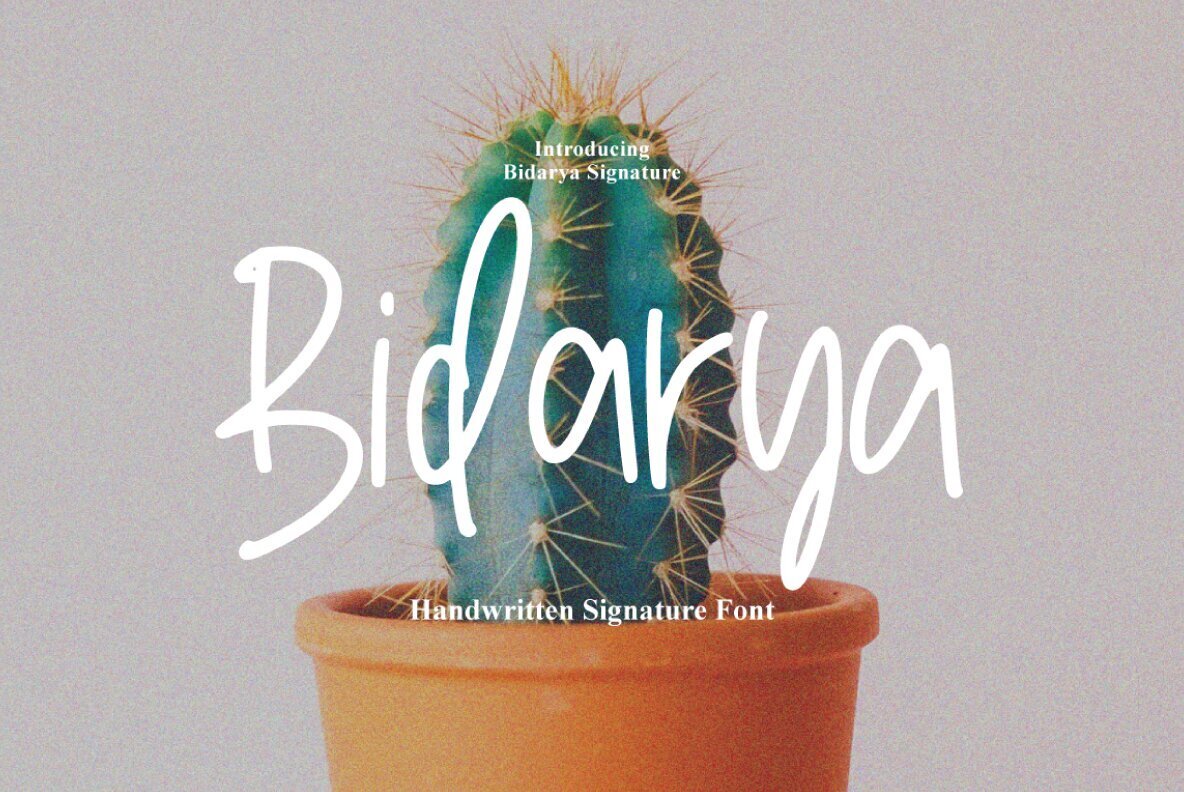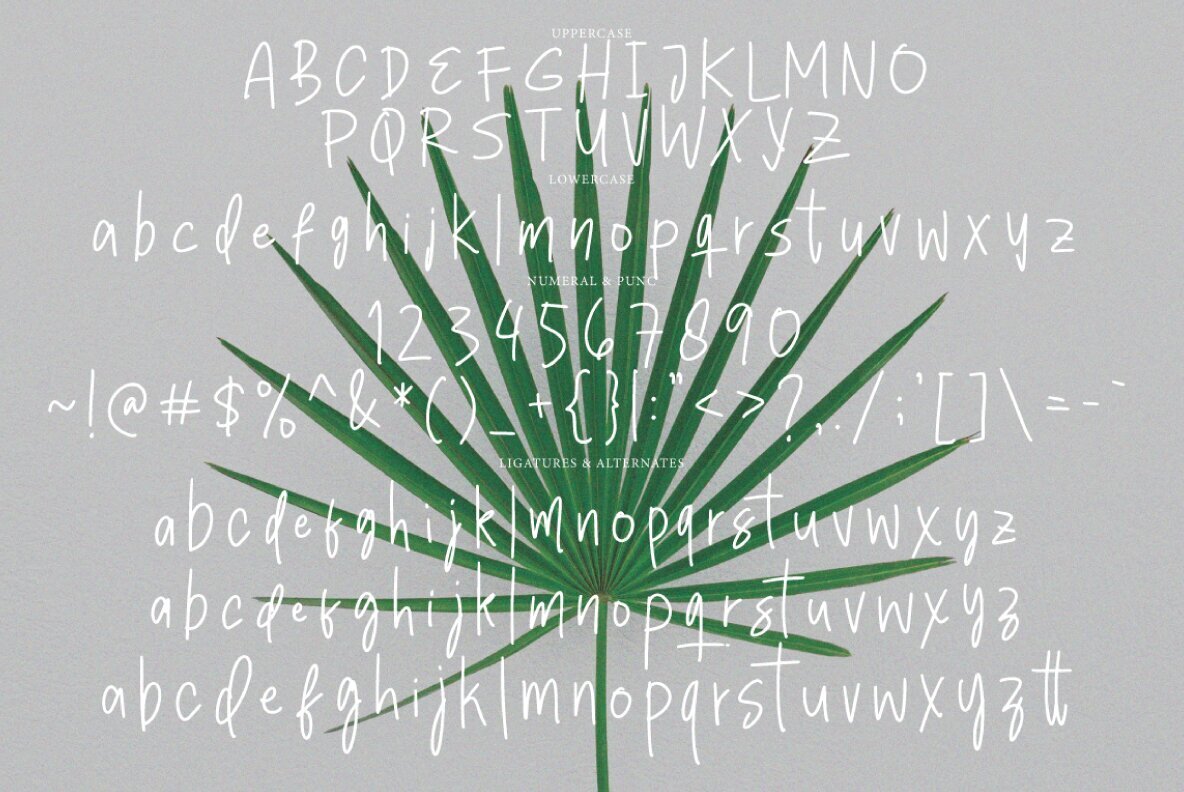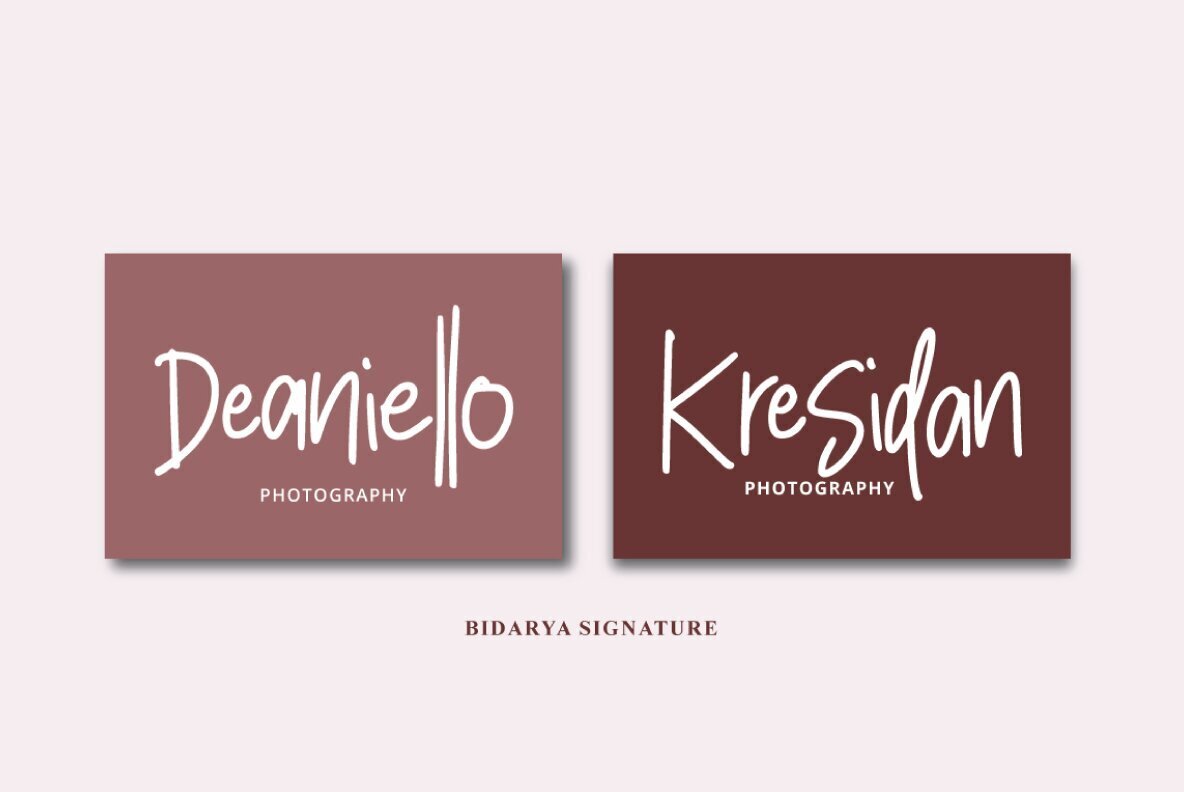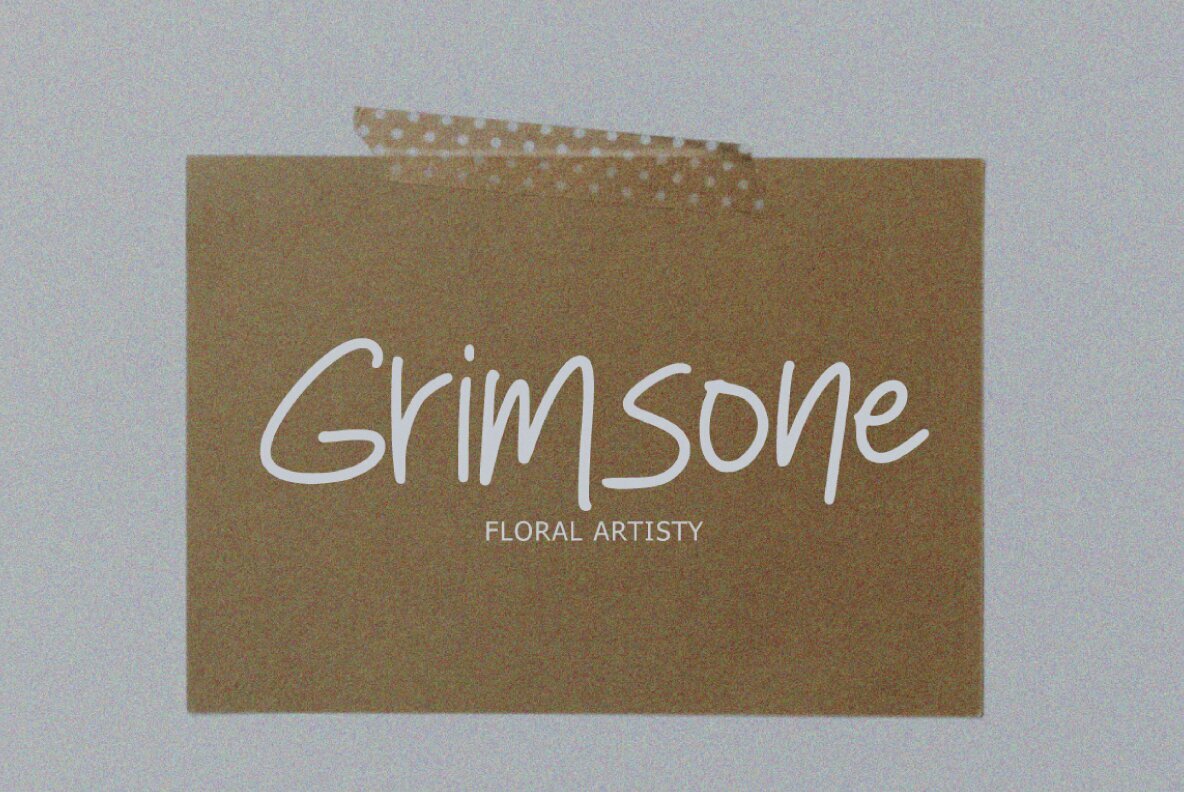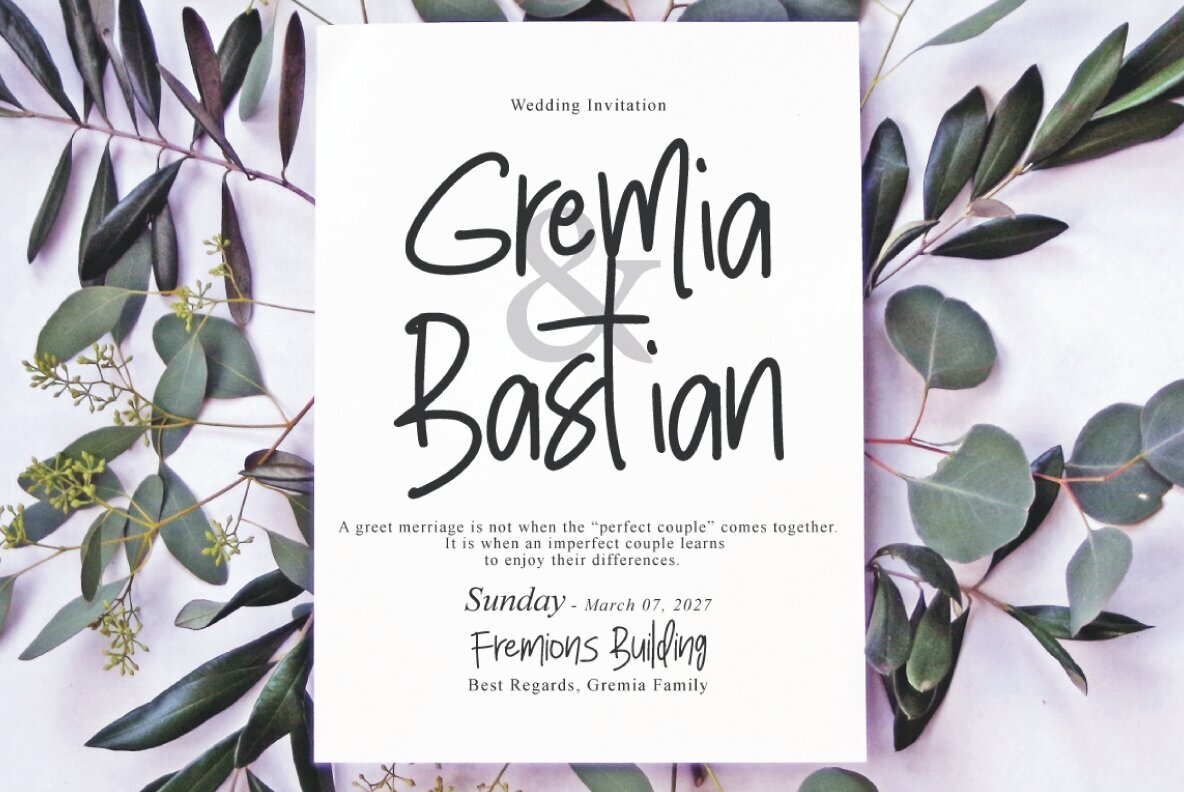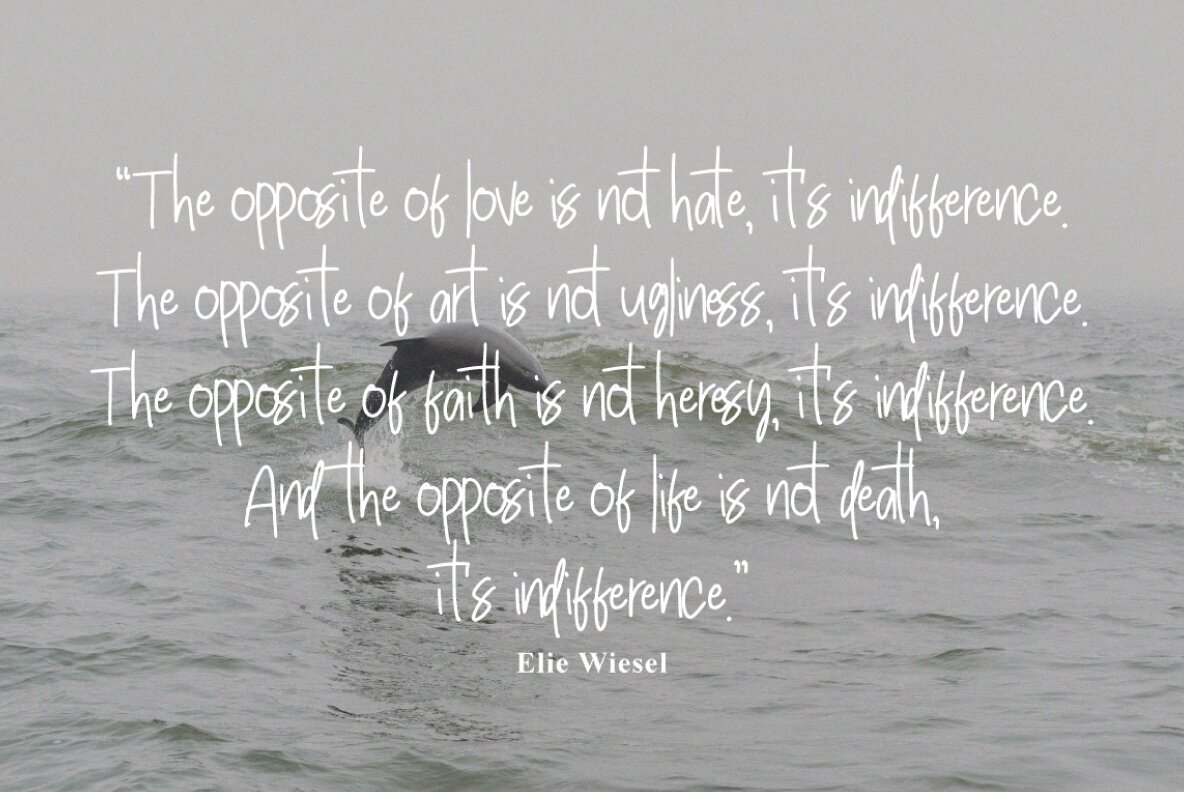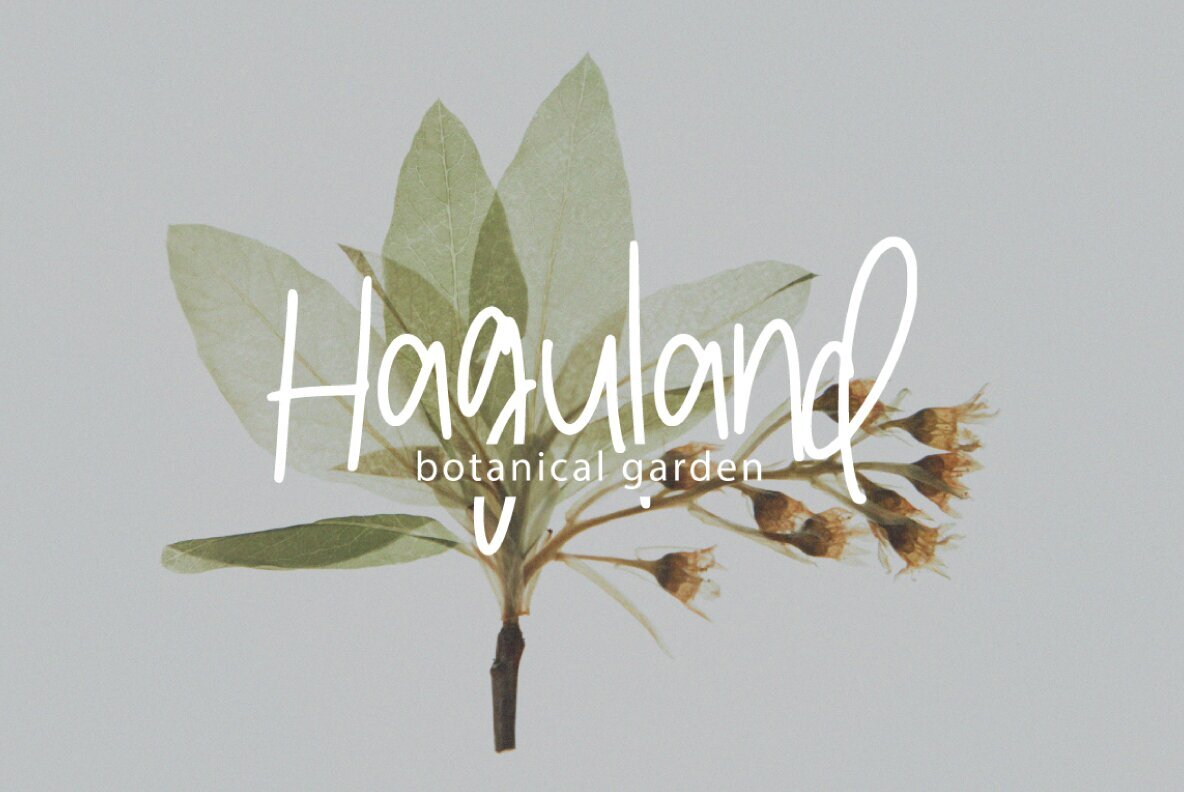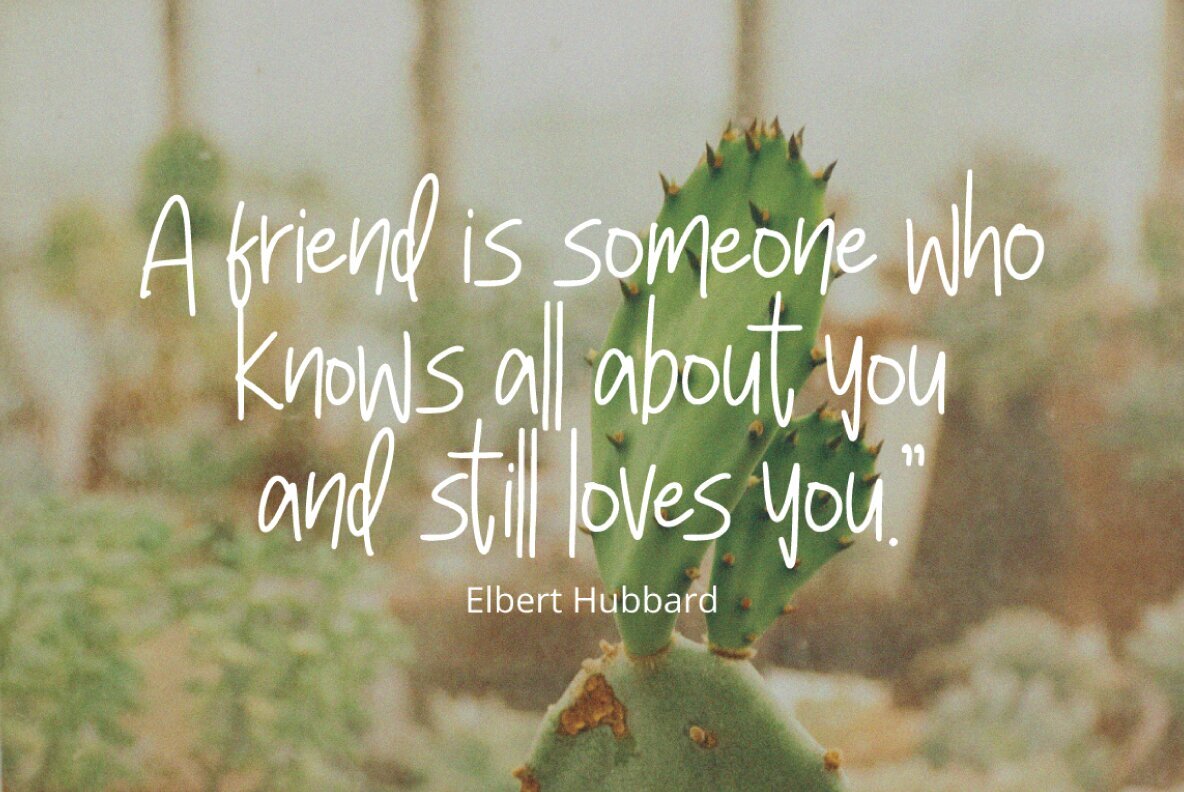
Bidarya Signature Font
Bidarya Signature Regular
Bidarya Signature with a handmade Signature style, decorative characters and a dancing baseline! So beautiful on invitation like greeting cards, branding materials, business cards, quotes, posters, and more!! Bidarya Signature come with 200+ glyphs. The alternative characters were divided into several Open Type features such as Swash, Stylistic Sets, Stylistic Alternates, and Ligature. The Open Type features can be accessed by using Open Type savvy programs such as Adobe Illustrator, Adobe InDesign, Adobe Photoshop Corel Draw X version, And Microsoft Word. And this Font has given PUA unicode (specially coded fonts). so that all the alternate characters can easily be accessed in full by a craftsman or designer. Included in this set: Files include Basic Latin A-Z and a-z Numbers Symbols Stylistic Set Ligatures Glyphs 200+ PUA Encode Multilingual Support If you don’t have a program that supports OpenType features such as Adobe Illustrator and CorelDraw X Versions, you can access all the alternate glyphs using Font Book (Mac) or Character Map (Windows).